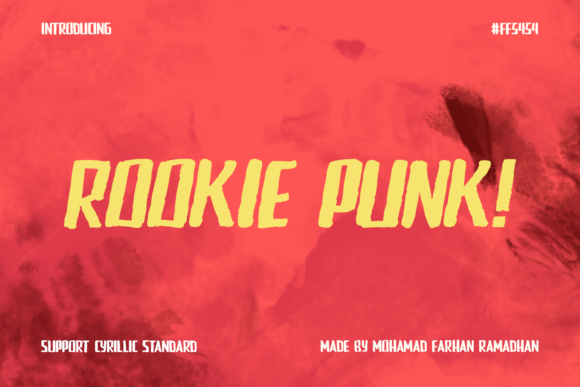
Unleash your designs with Rookie Punk, the ultimate display font that oozes boldness and individuality. Inspired by the edgy aesthetics of grunge and punk, this font commands attention with its striking glyphs, guaranteed to make your text leap off the page. Whether you're creating captivating titles, eye-catching posters, or seeking a unique touch for your projects, Rookie Punk is your go-to font.
Picture this: your designs transformed with the raw energy of Rookie Punk. Its bold presence will captivate audiences, leaving a lasting impression. Imagine your titles radiating with confidence, your posters screaming with attitude, and your projects exuding an unmistakable aura of originality. With Rookie Punk, you'll turn heads and ignite conversations.
Rookie Punk isn't just a font; it's a statement. It's a declaration of your creative prowess, a testament to your impeccable taste. When you choose Rookie Punk, you're not merely selecting a font; you're embracing a lifestyle, a mindset that embraces the unconventional and celebrates the extraordinary.
Join the ranks of creative visionaries who have harnessed the power of Rookie Punk to elevate their designs. Let your imagination run wild as you explore the endless possibilities this font offers. From edgy street art to rebellious fashion campaigns, from underground music posters to thought-provoking magazine covers, Rookie Punk is your trusted companion in the realm of visual storytelling.
With Rookie Punk at your fingertips, you'll discover a newfound passion for design, a renewed sense of inspiration. Its bold glyphs will ignite your creativity, propelling you to create designs that resonate with your audience. Unleash the rebel within, embrace the unconventional, and let Rookie Punk guide you towards design greatness.